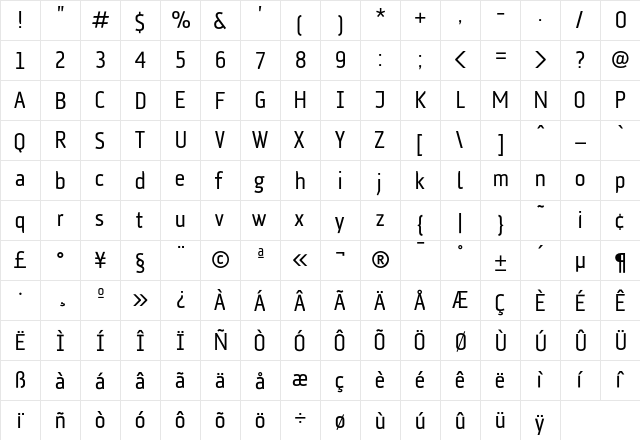
AFKlampenborg Regular
Design Context for AFKlampenborg Typeface
AFKlampenborg takes a measured approach to typography — its balanced proportions and neutral character make it a reliable workhorse for both digital and print work.